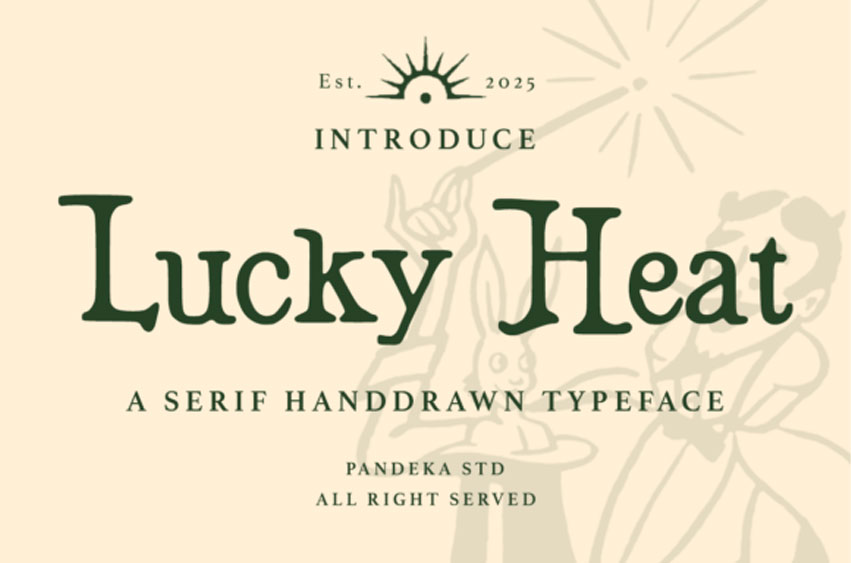
Lucky Heat Font
Lucky Heat Font is a bold, hand-drawn serif font that brings vintage Western vibes to life.
With a playful yet rugged aesthetic, it’s perfect for retro hand-drawn serif designs, vintage posters, western-themed branding, bold typography layouts, playful lettering, classic saloon signage, rustic packaging, and artistic display projects.